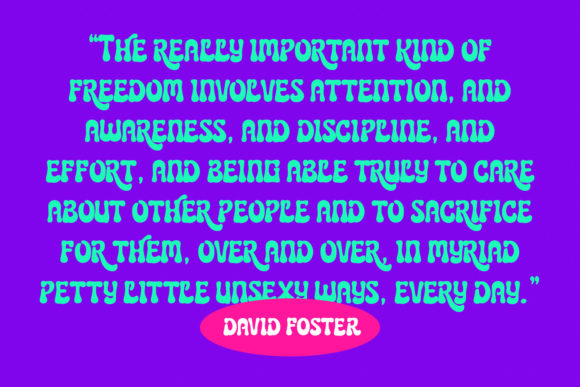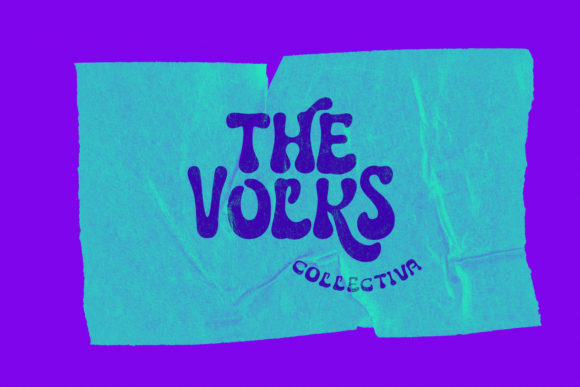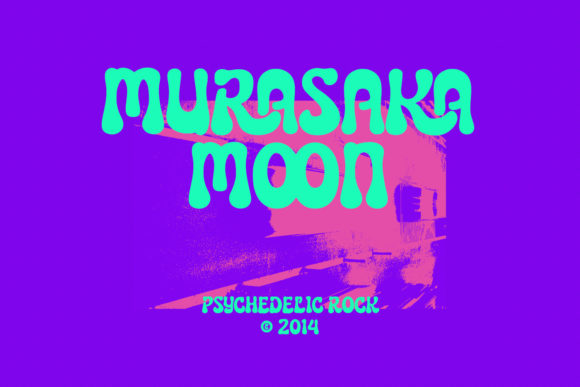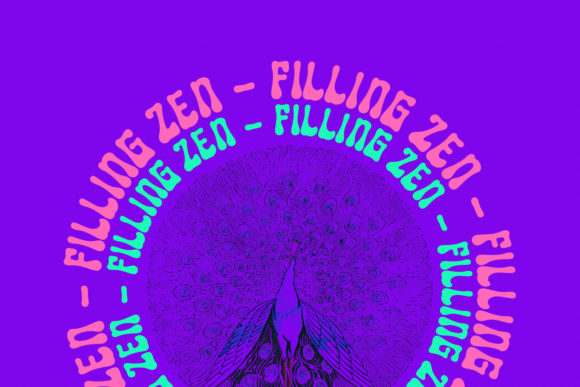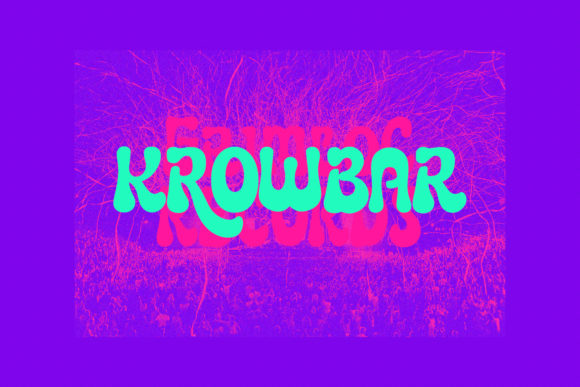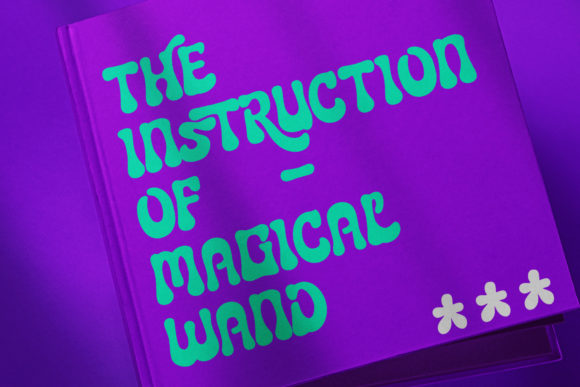
Introduction to Horriblys Font
Horriblys is a decorative handwritten display font.
With a bold wavy stroke, fun character with a bit of ligatures and alternates This font is good for logo design, social media, movie titles, book titles, short text even long text.
Why Choose Horriblys Font?